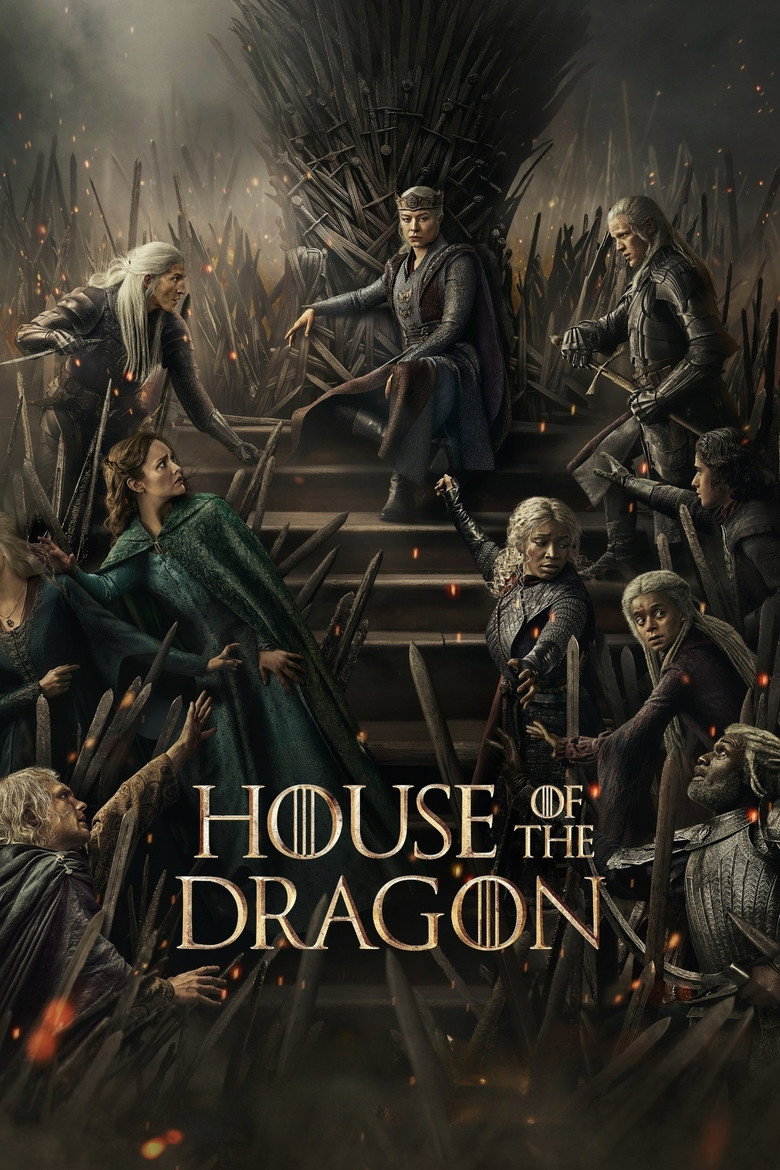
House of the Dragon Font Generator
About the House of the Dragon font
House of the Dragon uses an inscriptional serif. Cinzel brings that same fire-forged, royal weight.
What font is used in the House of the Dragon logo?+
The original House of the Dragon logo uses custom lettering. This generator recreates the look with Cinzel — a free, open-license font you can style and download.